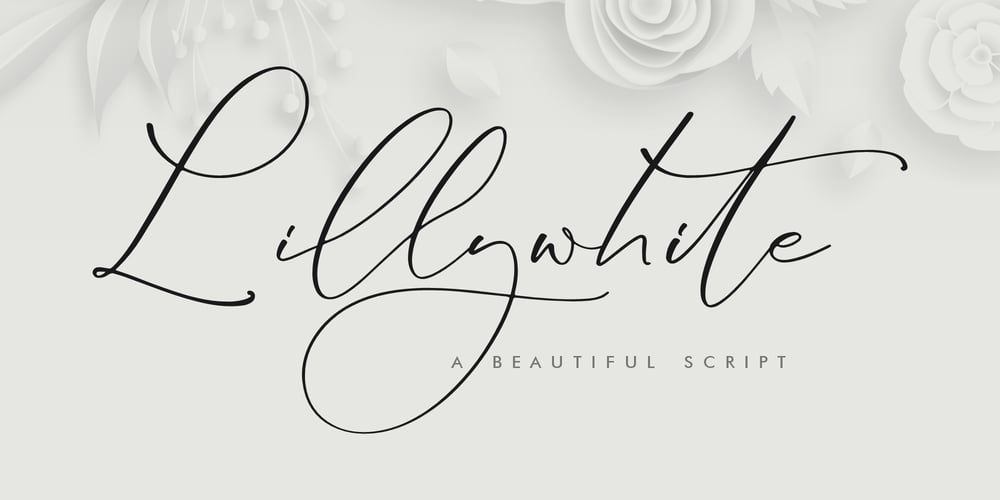
Lillywhite
Lillywhite font
Lillywhite Font Family was designed by Heru Utama Putra and published by Letterena Studios. Lillywhite contains 2 styles and family package options. Lillywhite is a beautiful and luxurious script with a unique style & modern look. This lovely typeface is perfect for an elegant & luxurious logo, book or movie title design, fashion brand, magazine, clothes, lettering, quotes, and so much more.